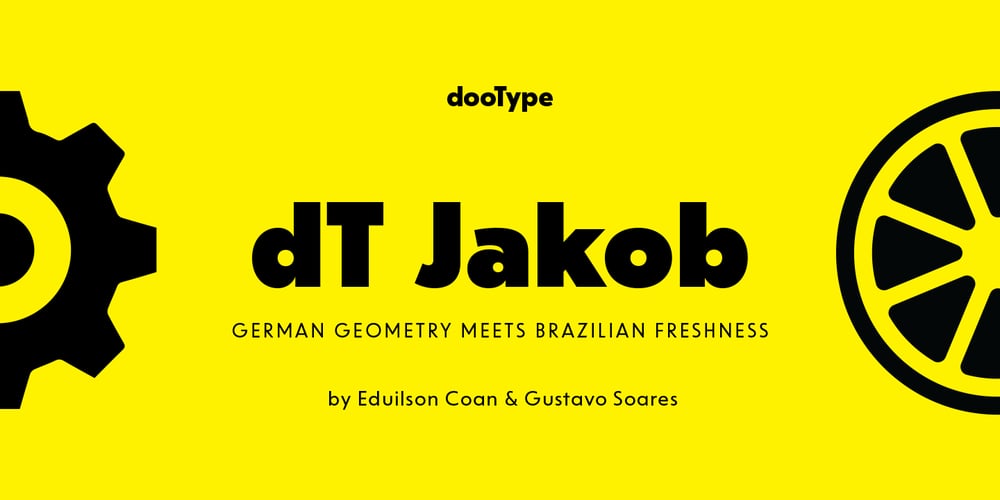
dT Jakob Font Family was designed by Eduilson Wessler Coan, Gustavo Soares and published by dooType. dT Jakob contains 14 styles and family package options. dT Jakob started as a revival by Gustavo Soares for Paul van der Laan’s class at the Type and Media Masters, in The Hague, NL – back in 2007. There are quite a few excellent geometric sans typefaces available, but we did want to make our contribution and have a fine geometric face to offer. dT Jakob was born out of Erbar, by Jakob Erbar, one of the very first geometric sans, released in metal around 1926. Our goal was to make a versatile typeface, that handles display and text typography beautifully. To achieve that we designed a complete range of weights, matching italics and lots of OpenType Features. Hope you enjoy it 😀